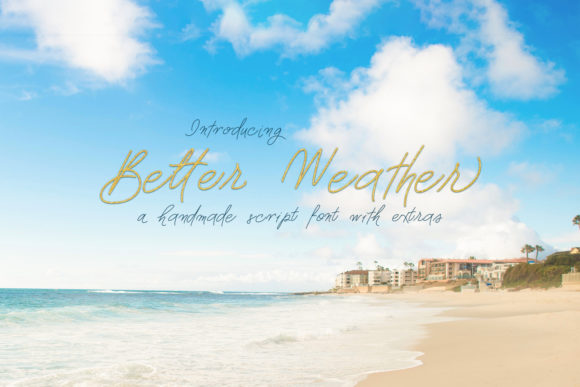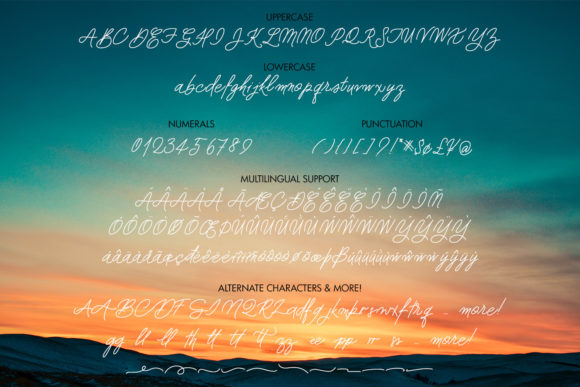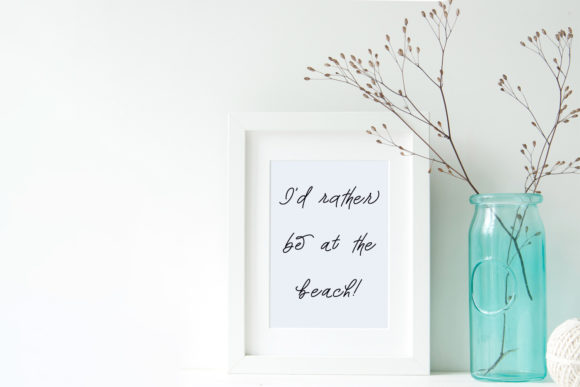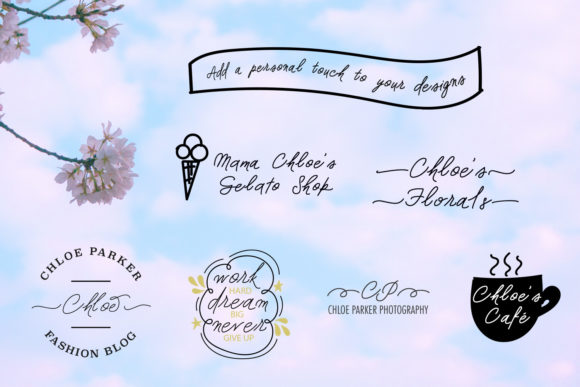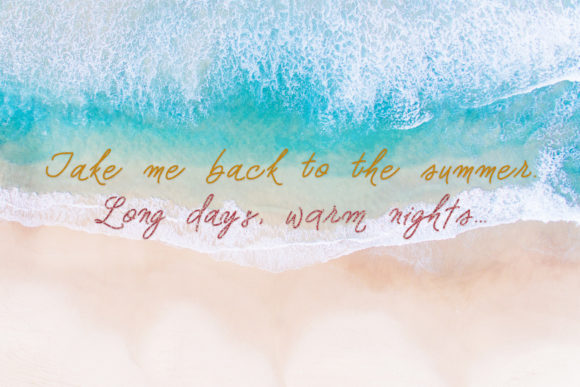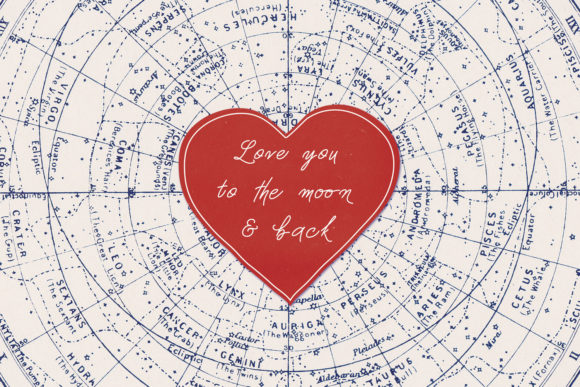
Better Weather Font
About Better Weather Font
Better Weather is an elegant, distinct and thin lettered script font. This font is neatly crafted and highly detailed. Whatever the topic, this font will be a wonderful asset to your font library, as it has the potential to enhance any creation.